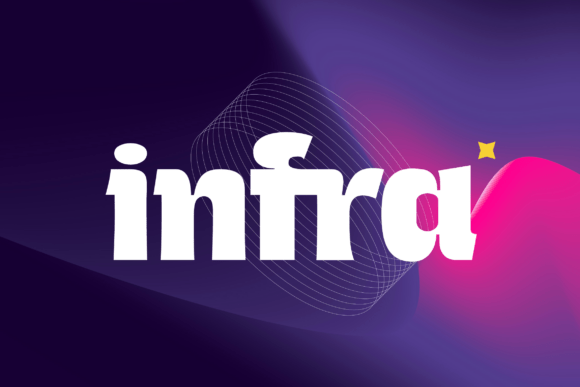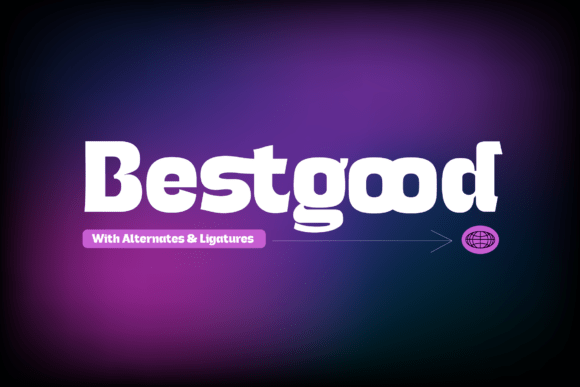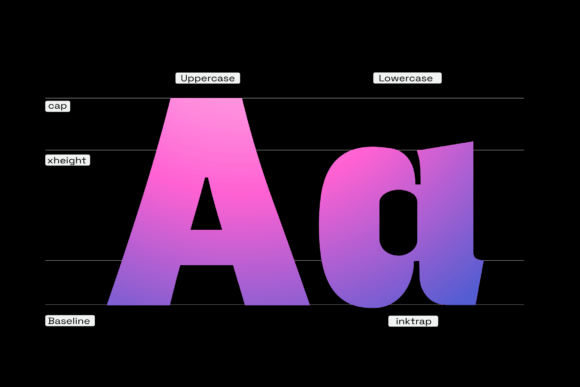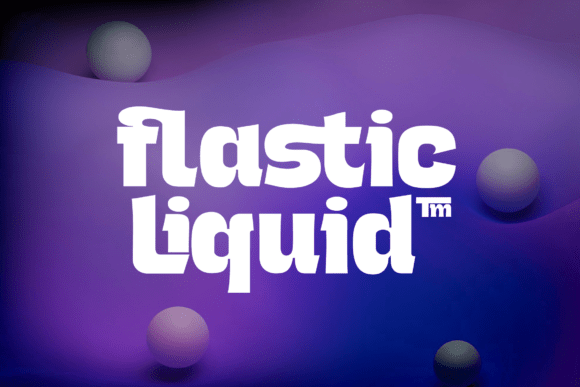
Infra Font: Bold Modern Serif for Impactful Logo Design & Branding
About the Infra Font
Make a bold statement with Infra Font, a powerful and memorable font. Infra – Bold Modern Inktrap Serif with a Futuristic Touch
Infra is a bold, modern serif typeface designed for impactful headlines and branding. With its strong geometric structure, smooth curves, and subtle ink trap details, this font blends retro aesthetics with a futuristic edge. The thick strokes ensure high readability, while the playful, slightly exaggerated letterforms add a dynamic and energetic feel.
Infra excels in headlines, logos, and short-form text for branding materials and posters. Its bold structure commands attention, making it ideal for impactful statements. However, the strong forms and x-height make it less suitable for body text or lengthy paragraphs; readability suffers in smaller sizes or extended use.
Consider pairing Infra with a clean sans-serif like Open Sans for body copy or a geometric sans-serif like Futura for a more modern feel. For a touch of elegance, a delicate script font such as Playfair Display can create a striking contrast.
Infra’s personality is best described as bold, energetic, and modern, reflecting a brand with a confident and forward-thinking identity. It suits tech companies, streetwear brands, or projects requiring a dynamic and memorable visual impact.
Infra Font Usage Examples
Infra Font Example